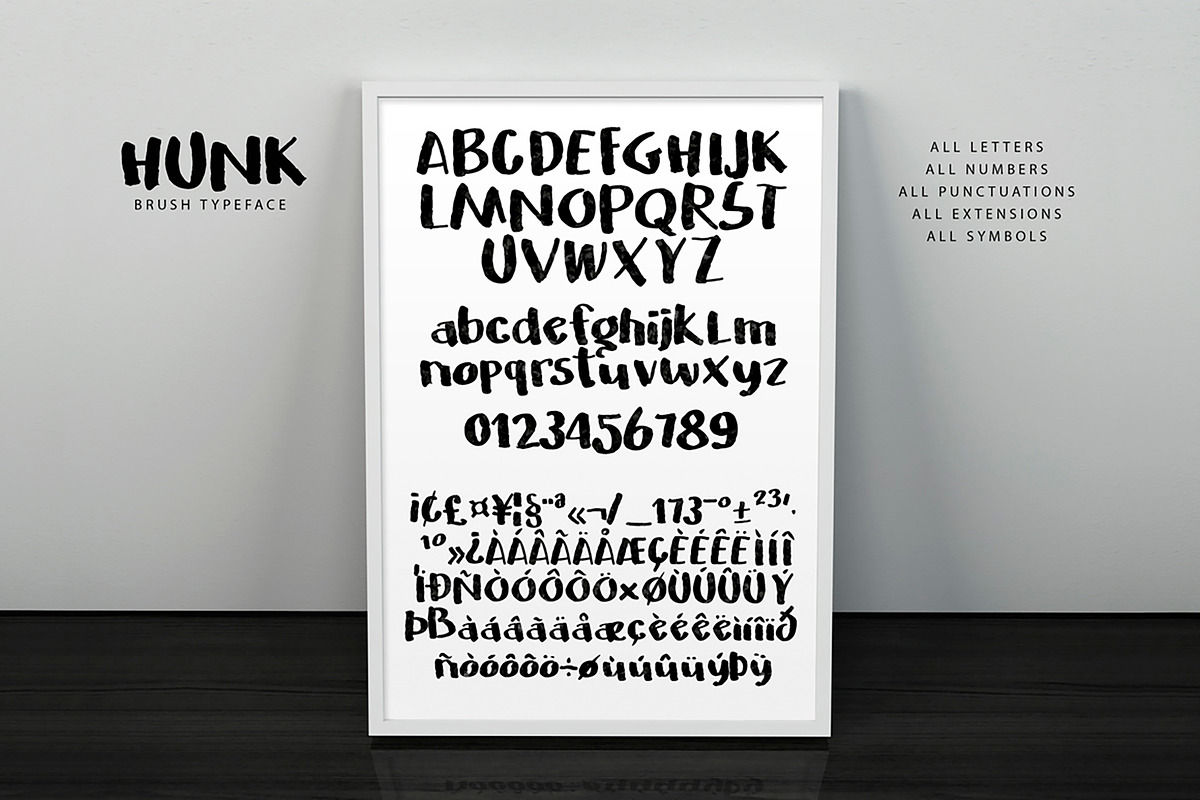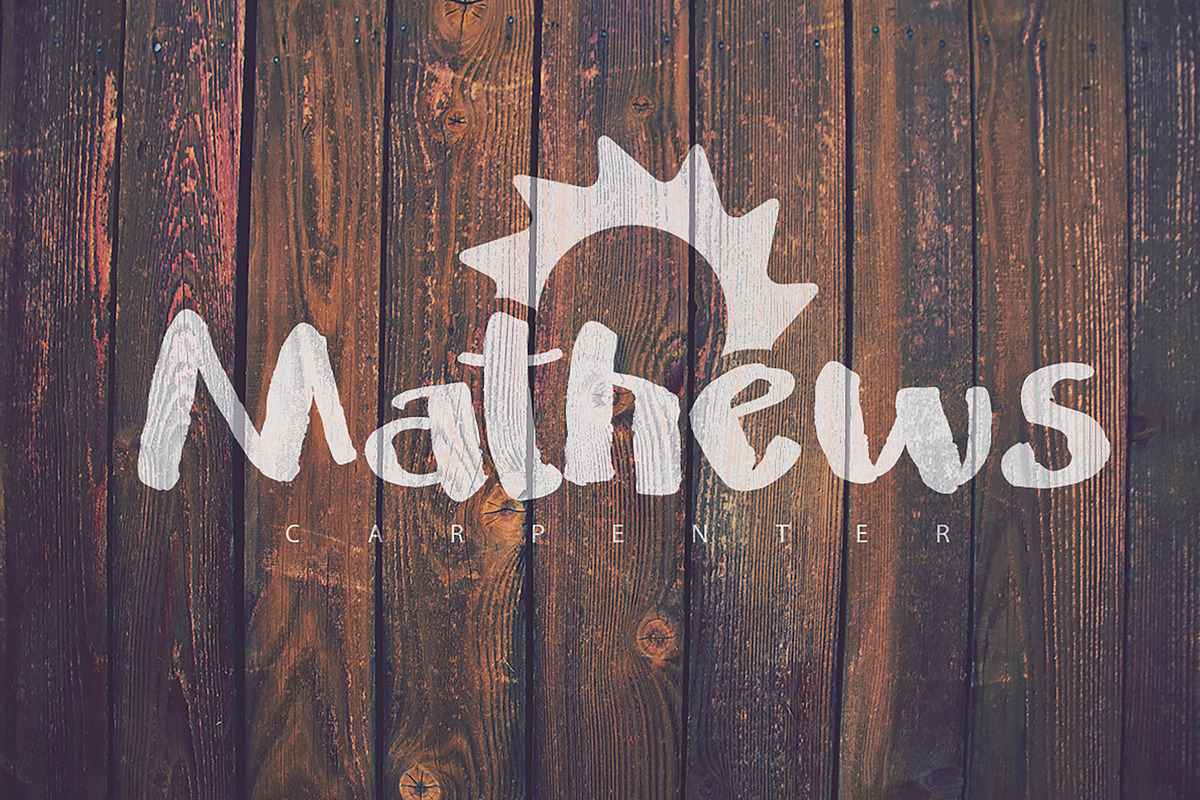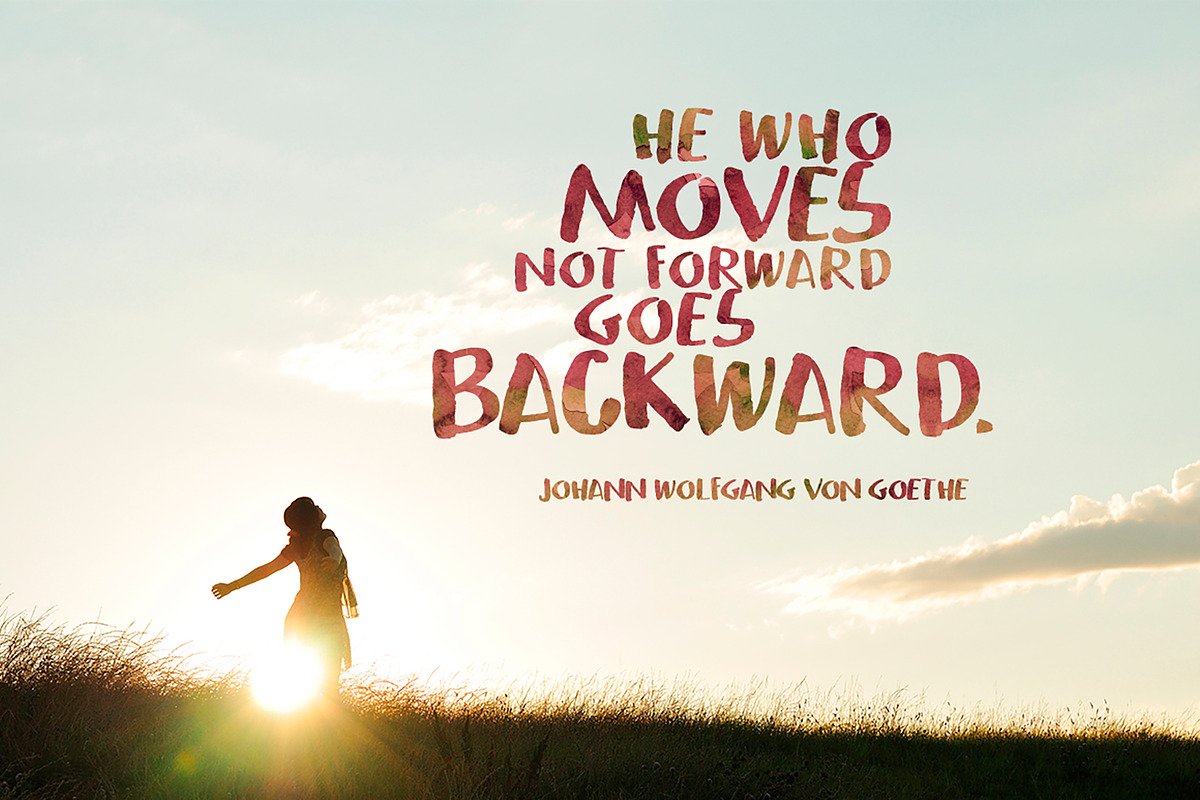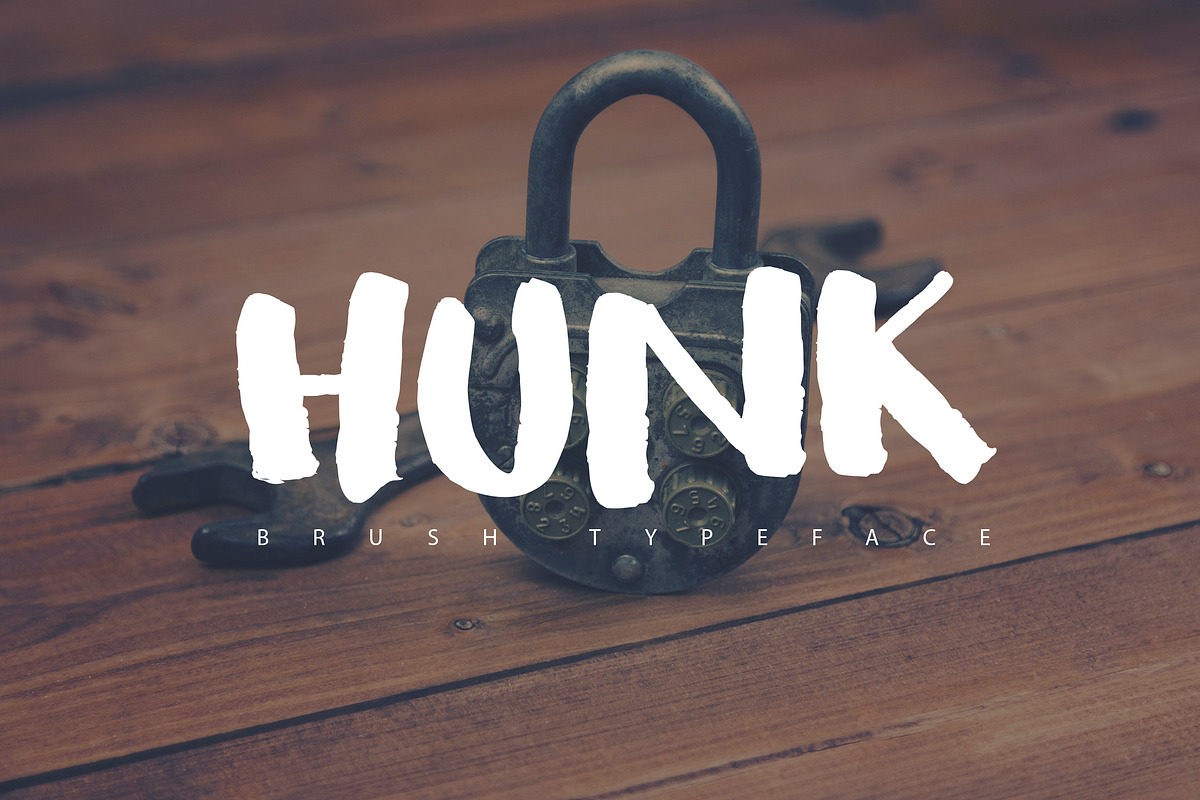
HUNK Brush Typeface
HUNK Brush Typeface by SmartDesigns is a font selected for branding, posters, packaging, typography.
Why HUNK Brush Typeface is worth a look
HUNK Brush Typeface by SmartDesigns fits naturally into Branding, posters, packaging, typography.